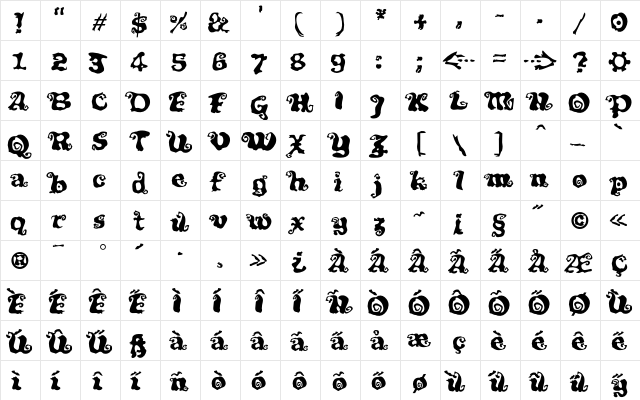
Cavolfiore Regular
Design Context for Cavolfiore Typeface
Cavolfiore is a composed and adaptable typeface that performs quietly and consistently across a wide range of design contexts.